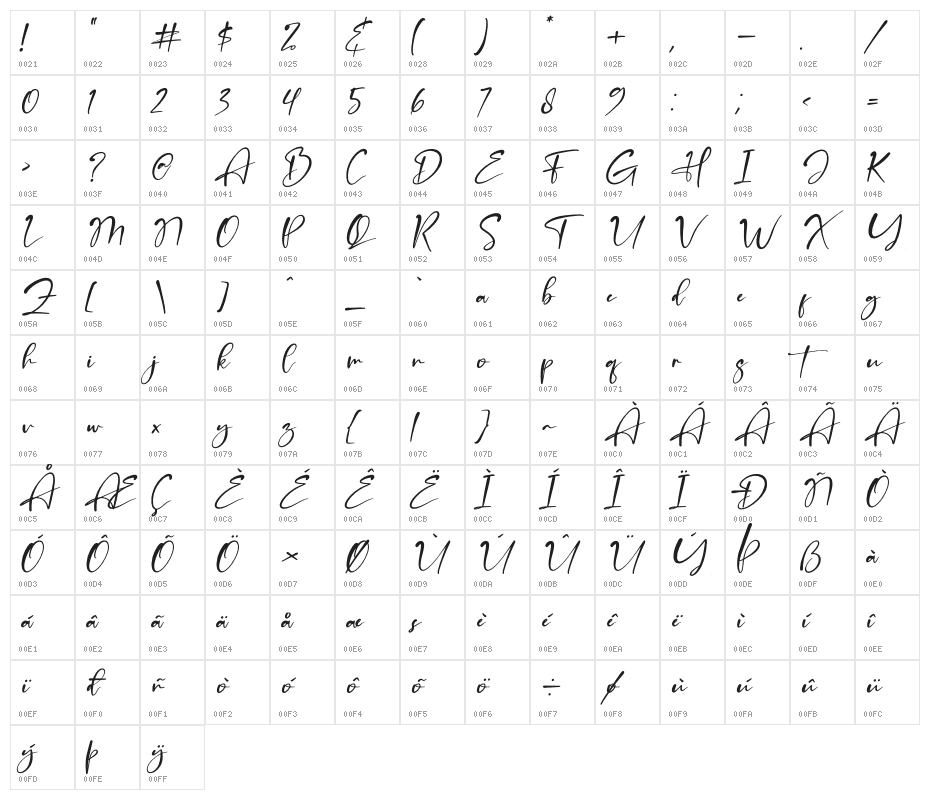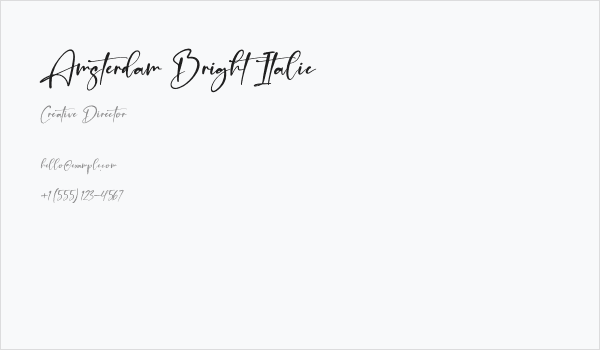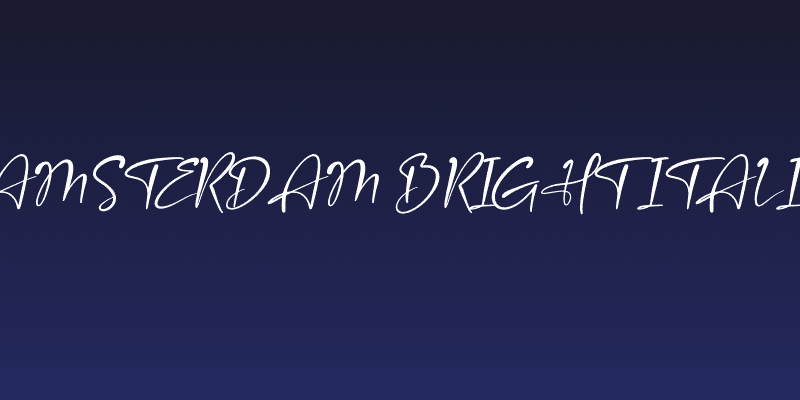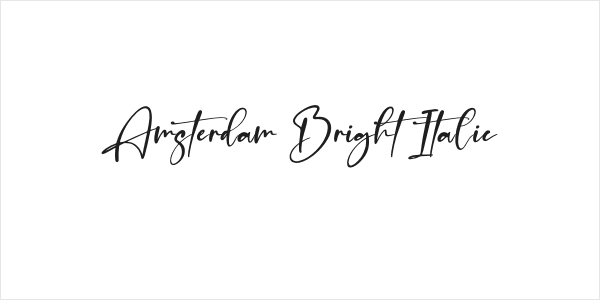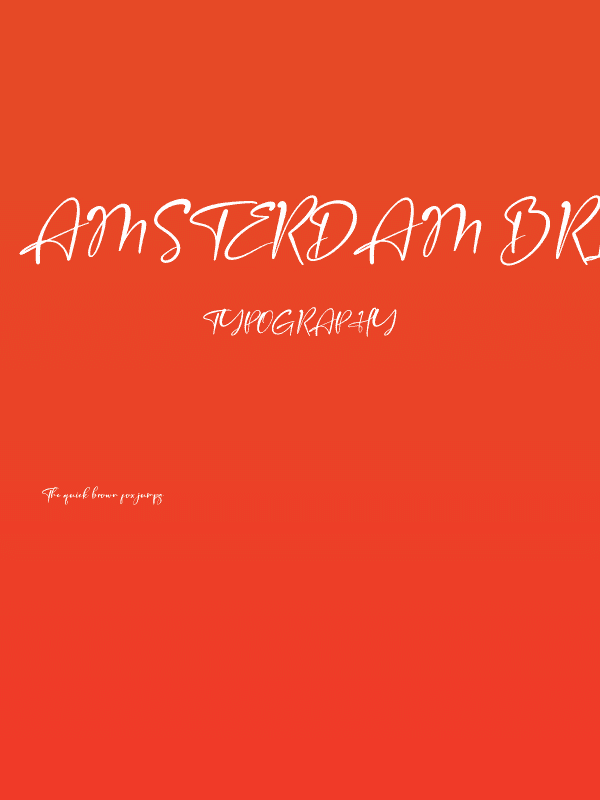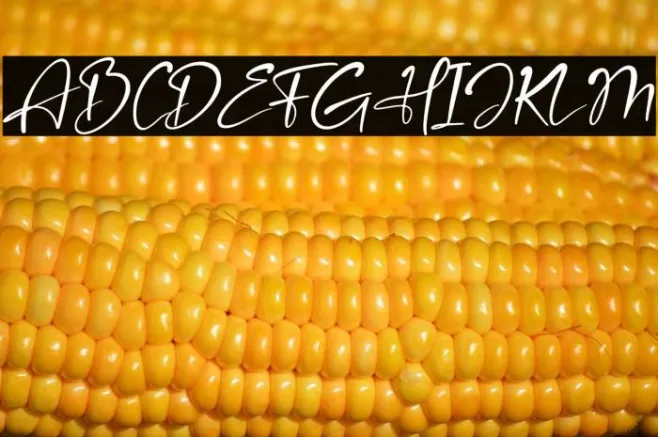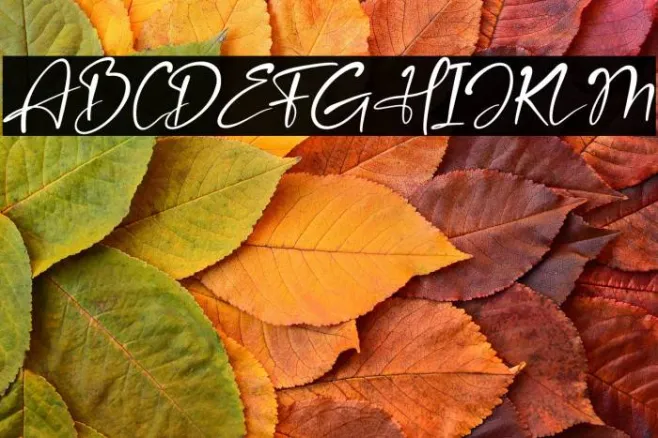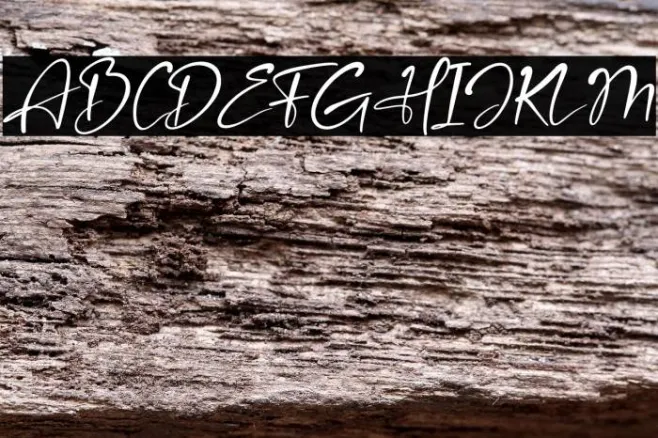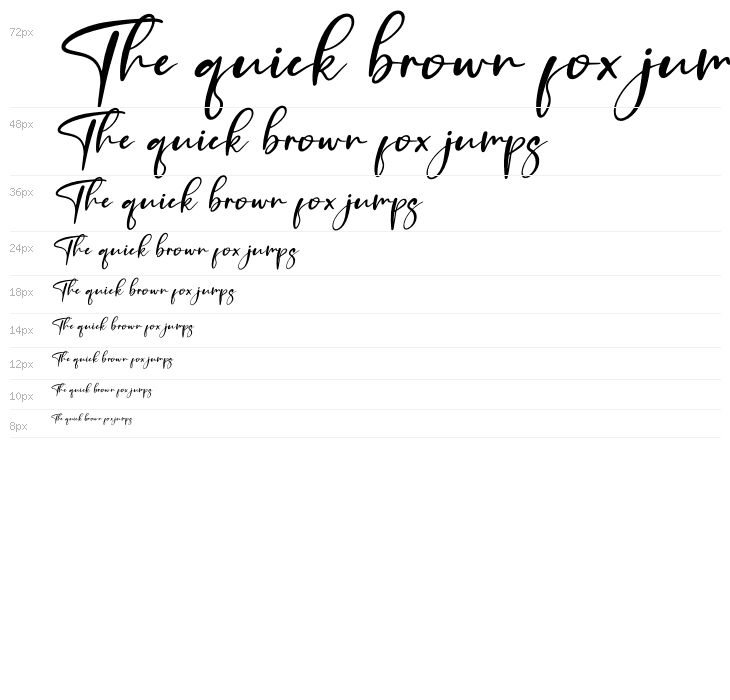
Amsterdam Bright Italic Font
Amsterdam Bright Italic Description
This font features an elegant and flowing script style, characterized by its smooth, cursive letterforms that exude a sense of sophistication and grace. The uppercase letters are bold and sweeping, with a dynamic slant that adds movement and energy. The lowercase letters maintain a consistent flow, with delicate loops and curves that enhance its handwritten appeal. The numbers are equally stylish, maintaining the font's overall fluidity. Special characters are thoughtfully designed to complement the letterforms, ensuring versatility in various design contexts. This font's aesthetic is perfect for projects that require a touch of elegance and personal flair.
| Overall Style | Elegant, Decorative |
| Proposed Projects | Ideal for wedding invitations, branding, greeting cards, and elegant packaging designs. |